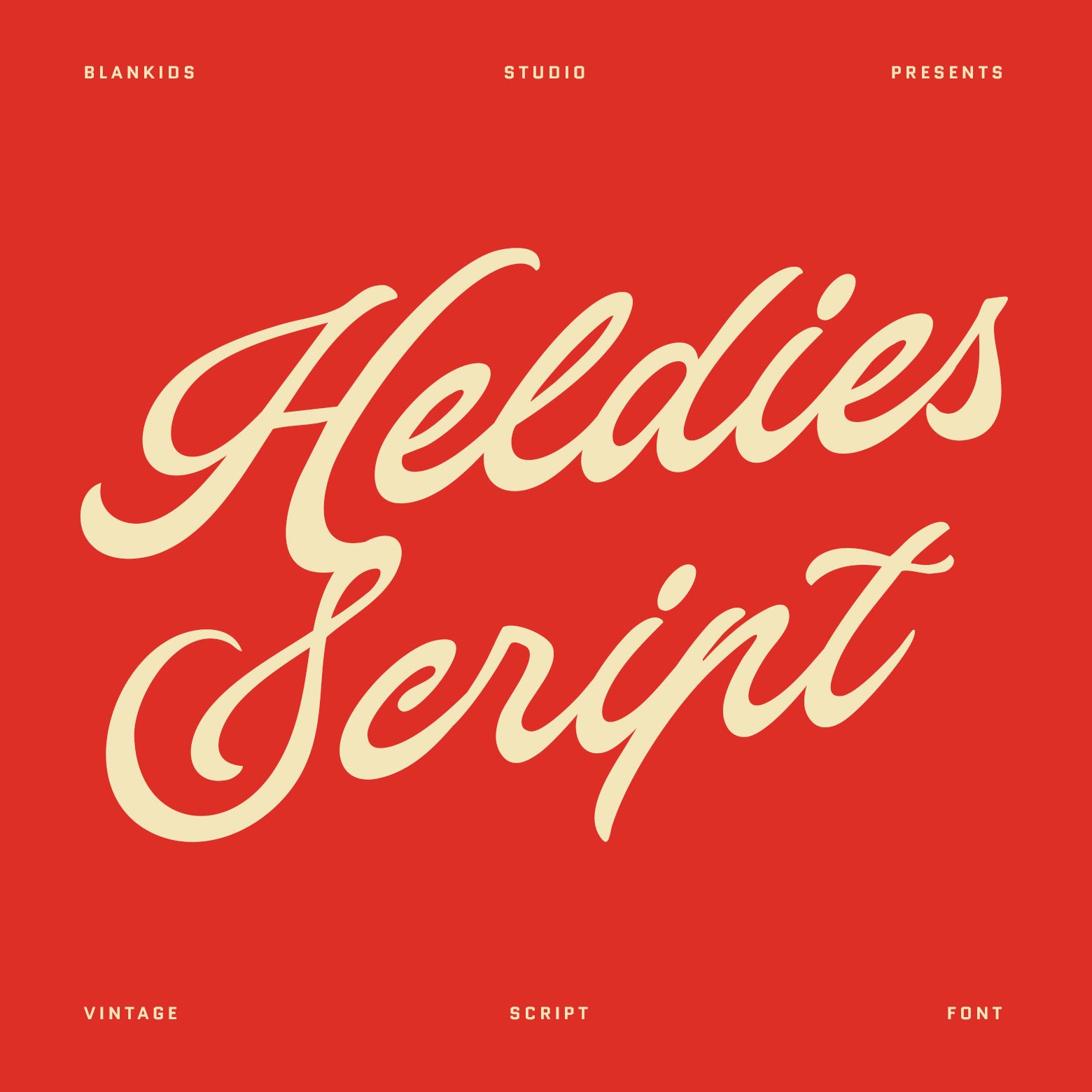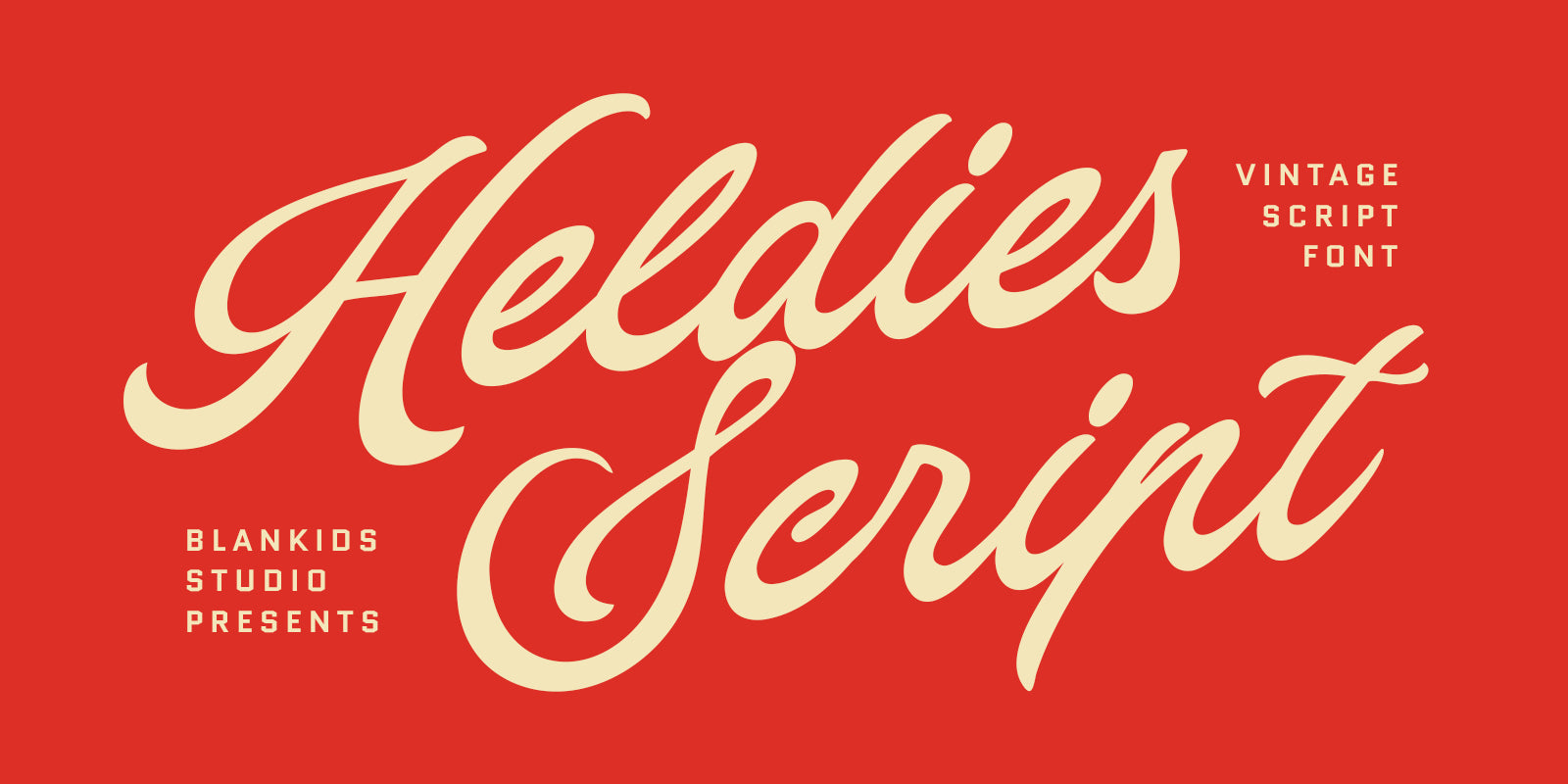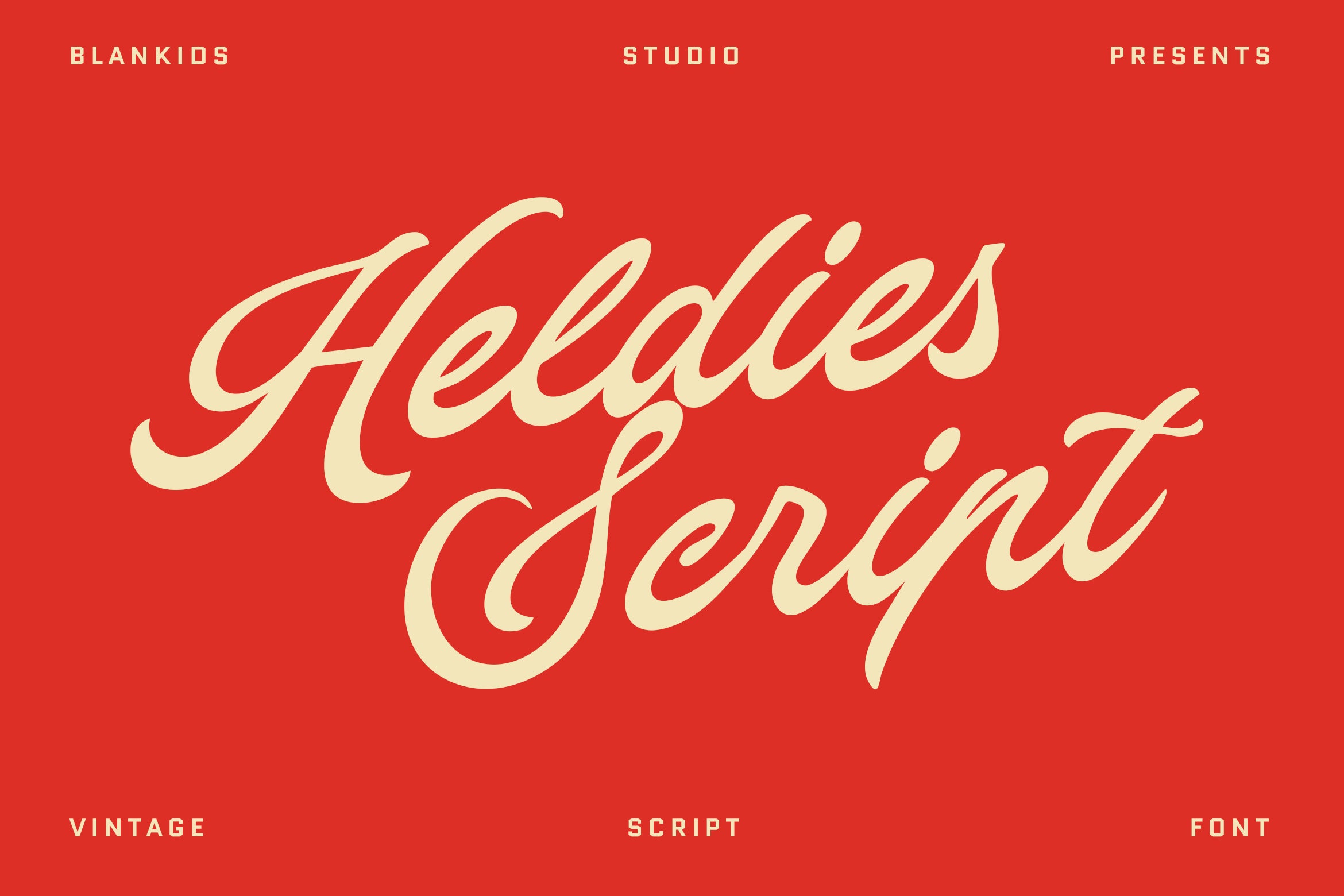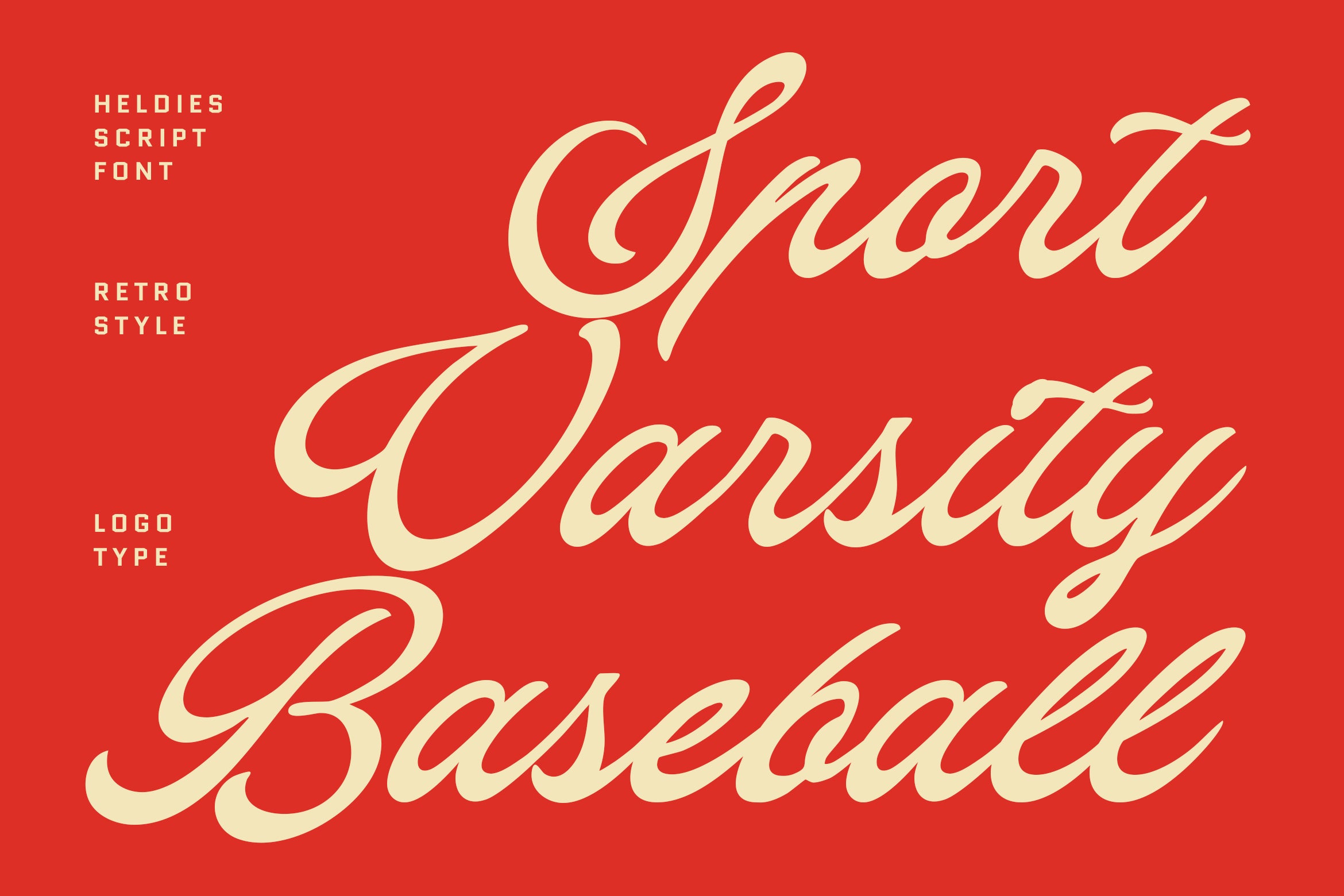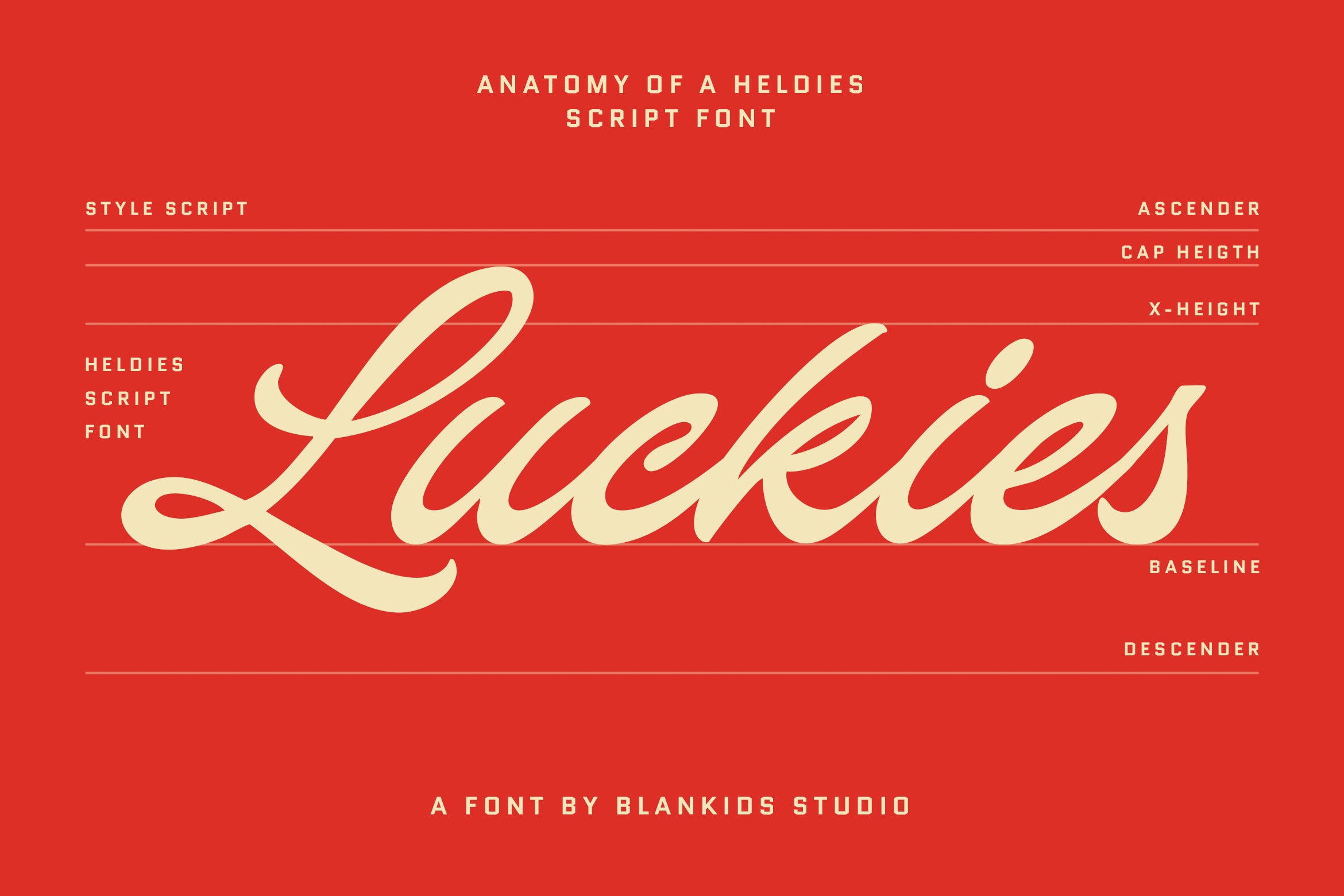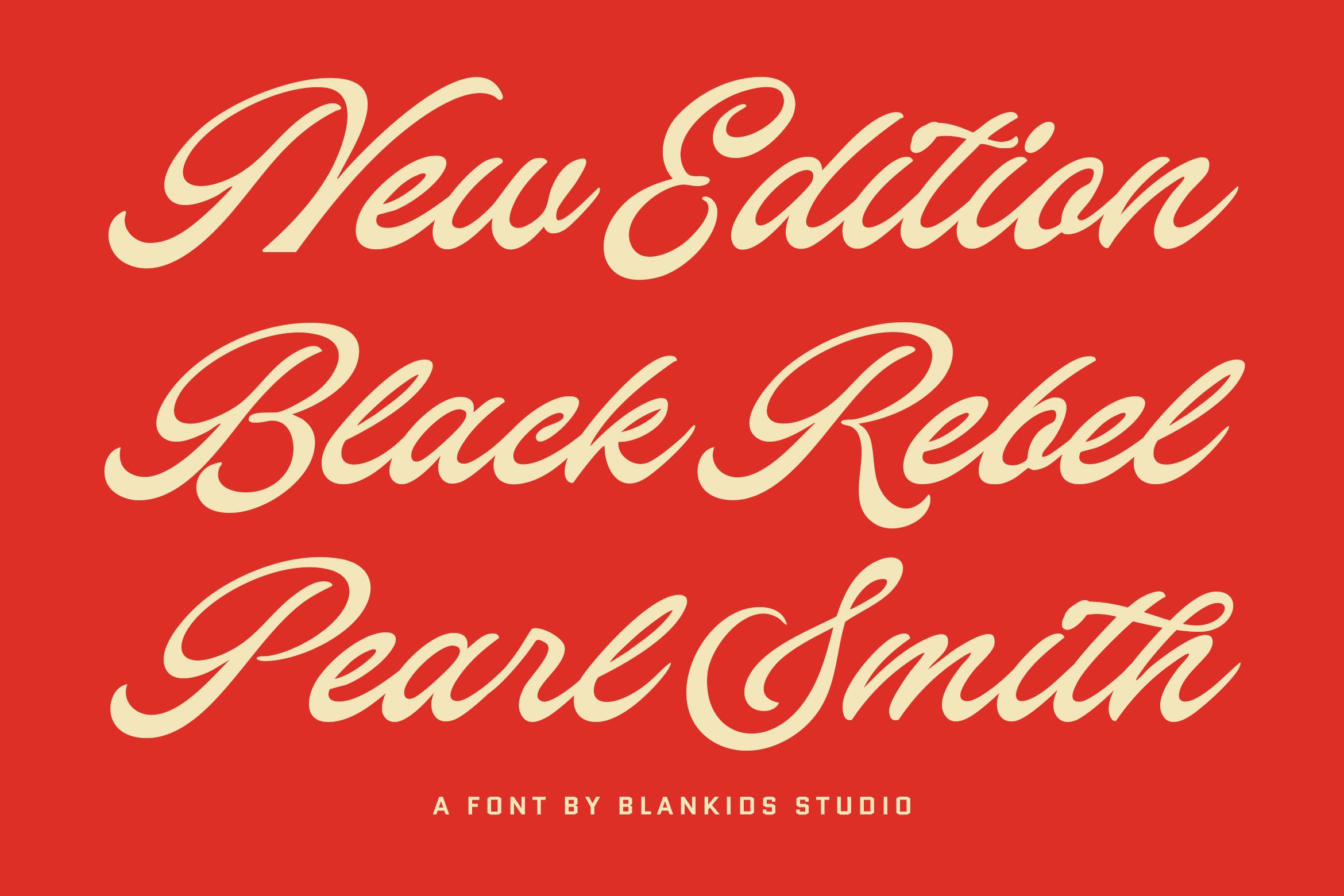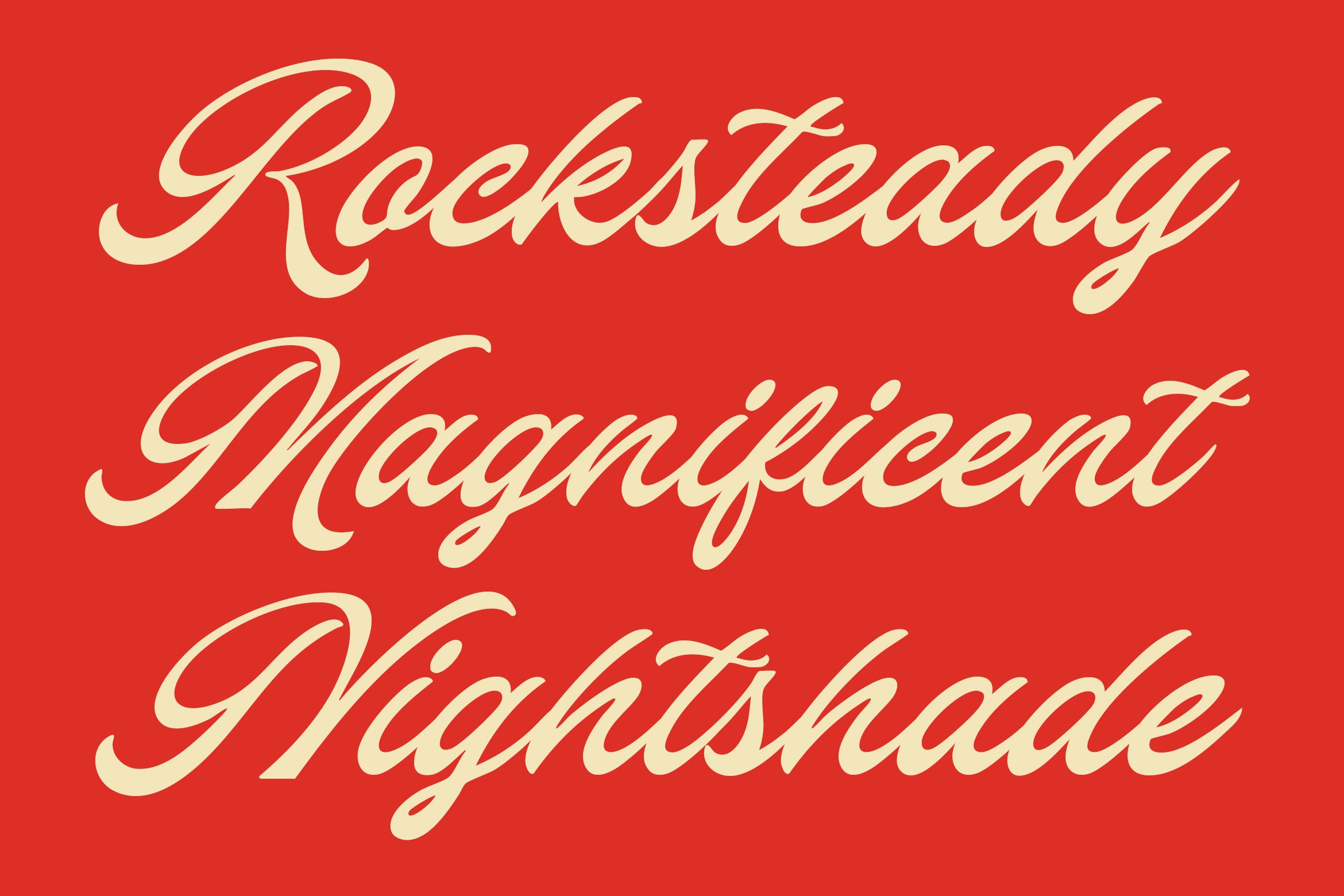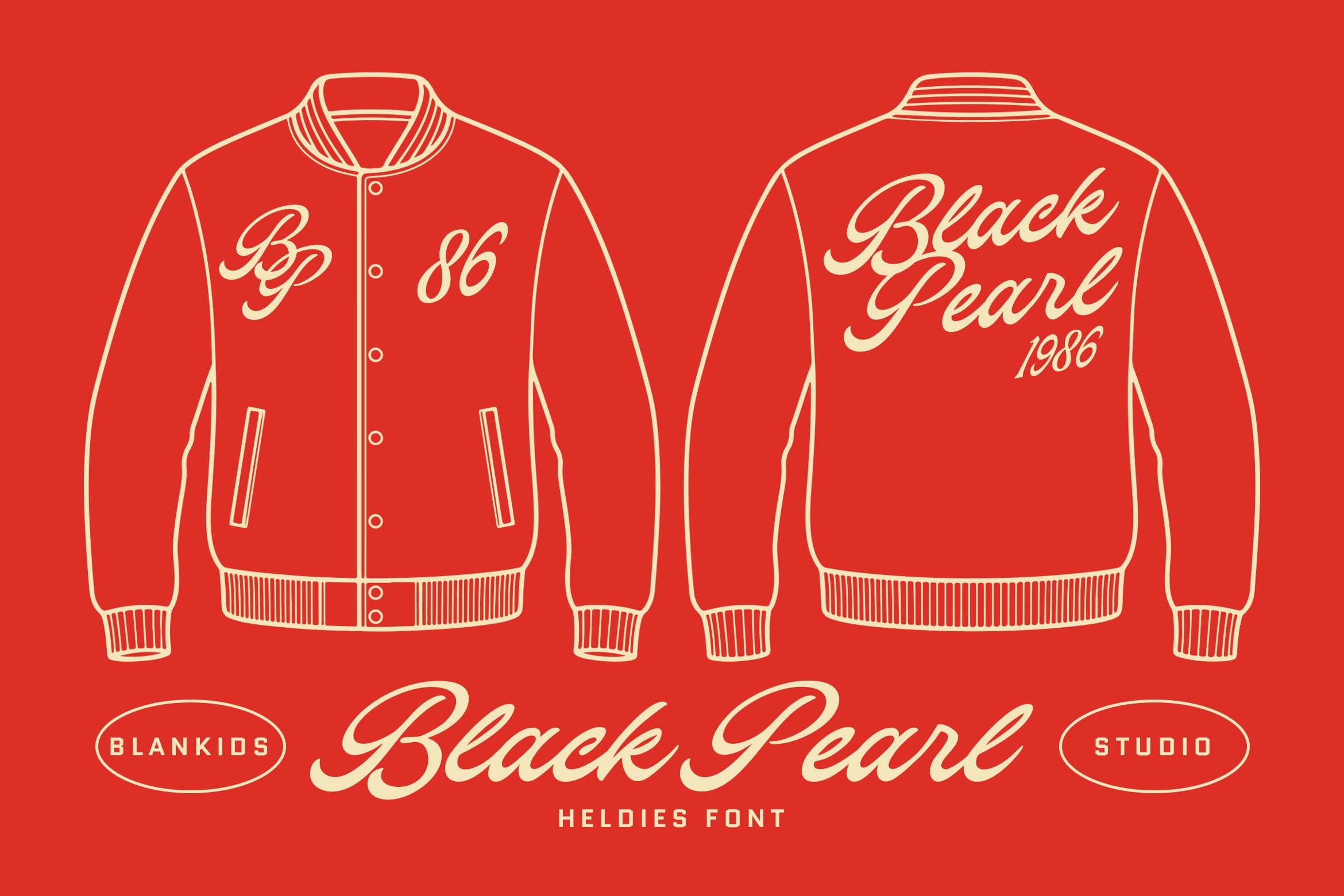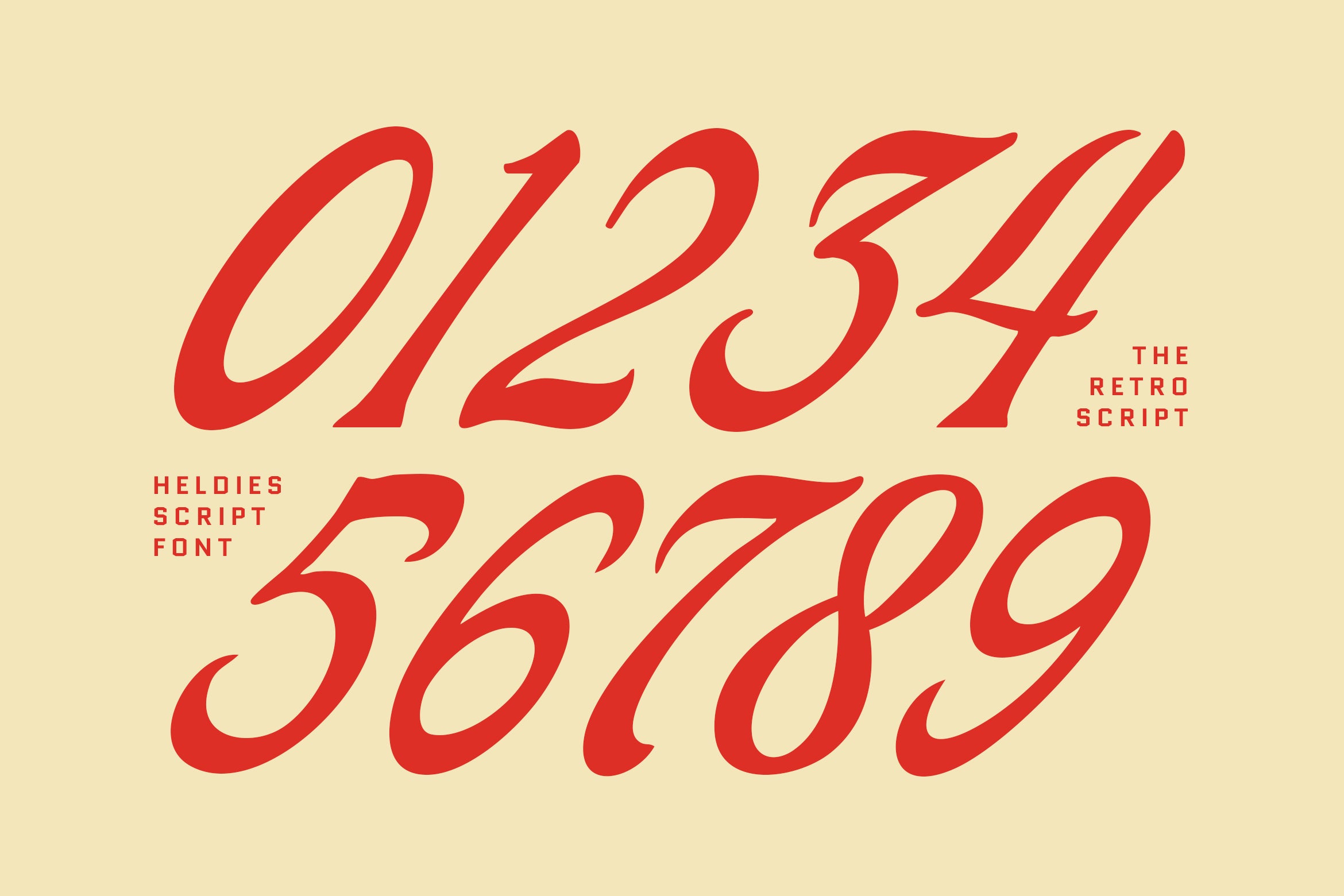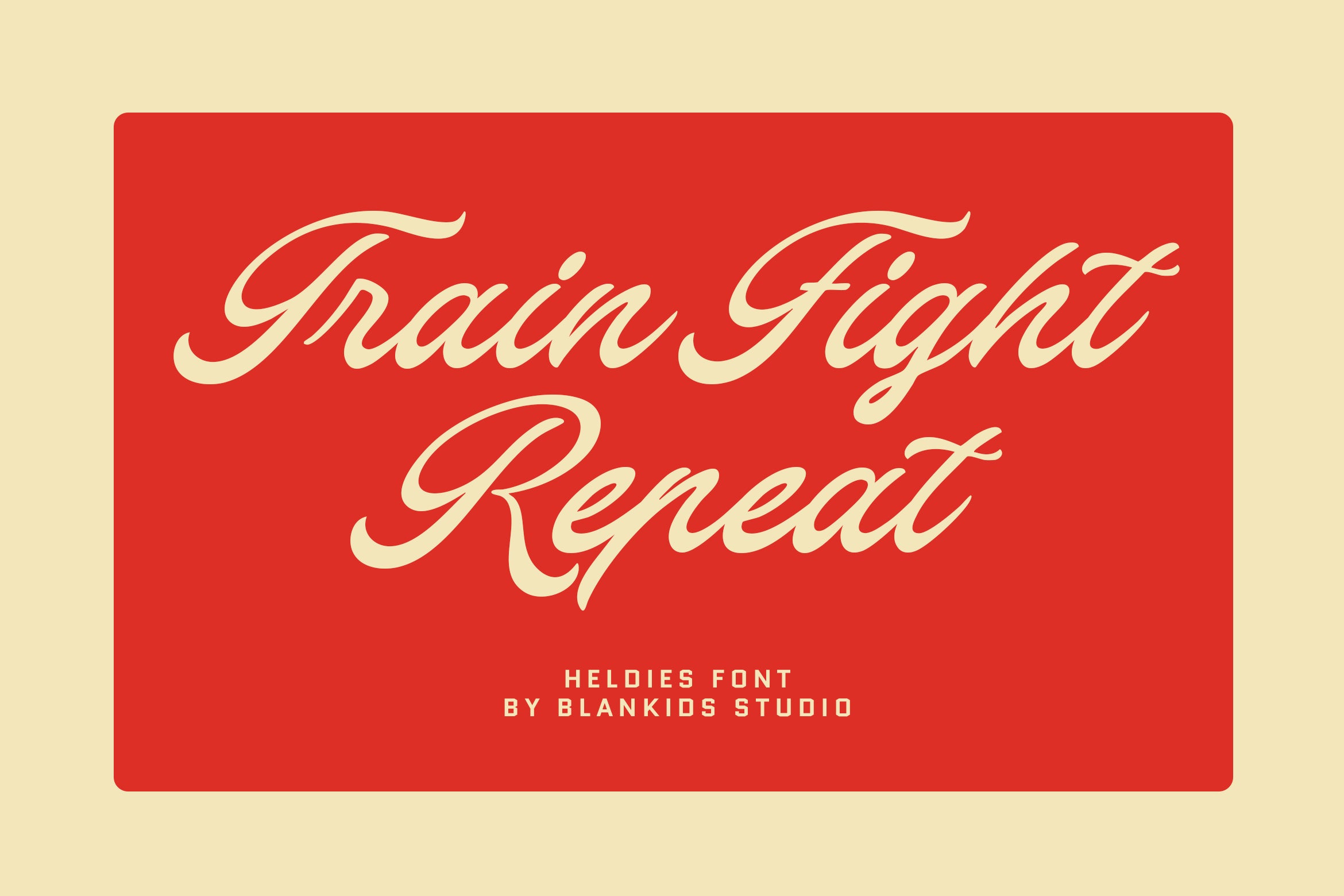
Heldies Script Font – Retro Script with Timeless Charm
Heldies Script Font inspired retro script designed to bring warmth, elegance, and personality into your designs. With smooth curves, flowing strokes, and classic letterforms, Heldies captures a nostalgic feel while staying versatile for modern creative projects.
This script font is carefully crafted to look natural and expressive, making it perfect for branding, logos, packaging, posters, social media, and editorial designs. Its balanced contrast and clean readability allow it to stand out beautifully both in large display use and shorter text applications.
Heldies Script Font works seamlessly across digital and print projects, giving your designs a handcrafted, retro, and authentic look without sacrificing clarity.
The Heldies Script Font is a retro-inspired script typeface featuring smooth curves and classic letterforms, designed for versatility in both digital and print projects. It includes OTF and TTF file formats, ensuring clear readability and a handcrafted appearance suitable for various design applications.